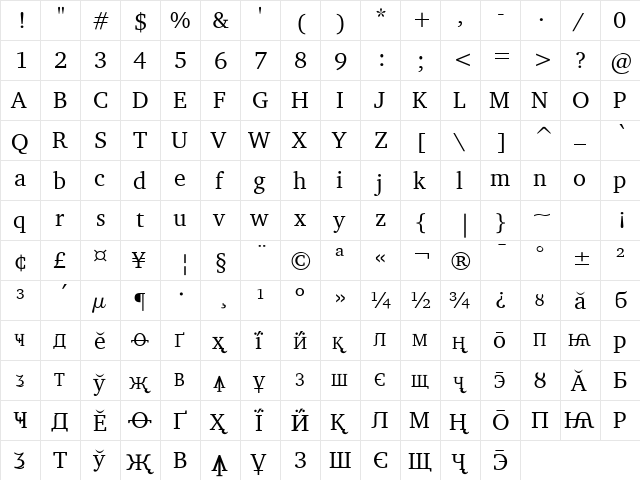
LeedsCyr Koi8_4 Normal
LeedsCyr Koi8_4 is a composed and adaptable typeface that performs quietly and consistently across a wide range of design contexts.